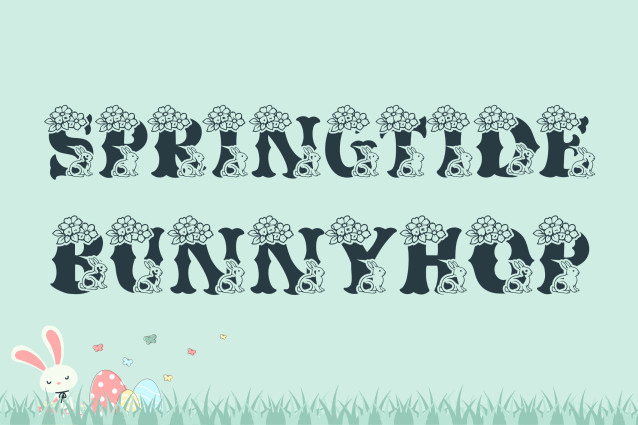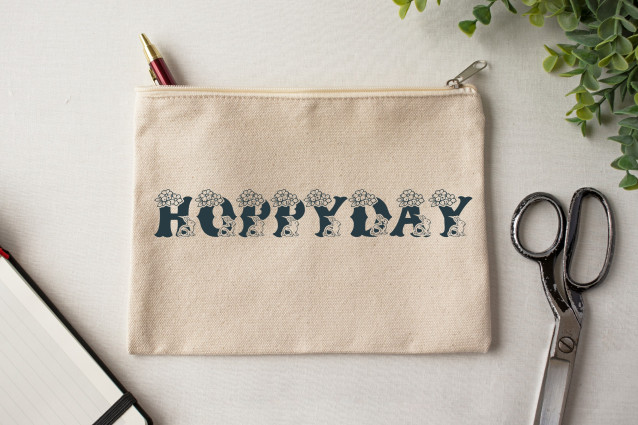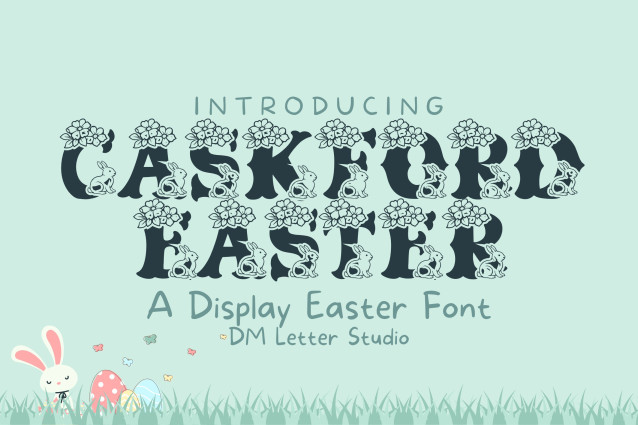
Caskford Easter Font
Caskford Easter Font blends classic old western letterforms with a playful seasonal twist made for festive designs. It keeps the bold, vintage structure of the original Caskford while adding a softer, festive mood that feels friendly and handcrafted. The shapes stay strong and readable, so it works well from small tags to large headlines. Use it for promotions, spring packaging, gift labels, posters, kids’ events, and rustic seasonal branding. As a result, your designs feel warm, fun, and memorable without losing character.
Fast layouts with this Font
Start with short, cheerful words like greetings or product names. After that, add supporting text using a simple sans or serif font. Because Caskford Easter has strong shapes, it works well in badges, arches, and label-style layouts. In addition, it shines on egg hunt signs, basket tags, and spring-themed frames. Finally, try color pairs like pastel yellow & brown, mint & cream, lavender & tan, or sky blue & ivory to lock in the Easter vibe.